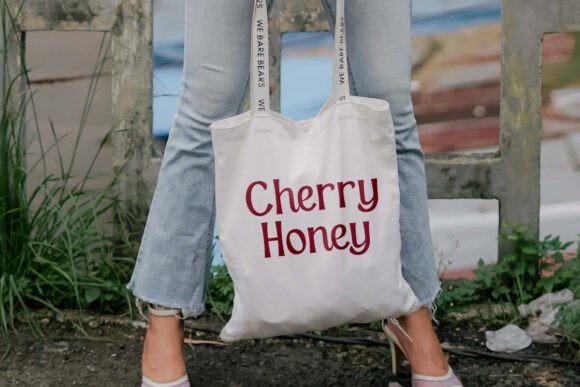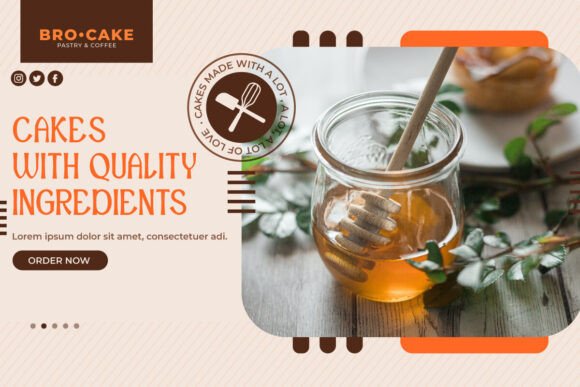
Cherry Honey Font
Cherry Honey Font is a stylish, modern sans display font inspired by the sweet cherry. This kind of font can fill the empty space in the design with its simple but still attractive design. It will be good for any designs, such as advertisement, brand image, business card, cover, custom design, flyer, invitation, label, menu, poster, product packaging, quote, signage, website page, and more!